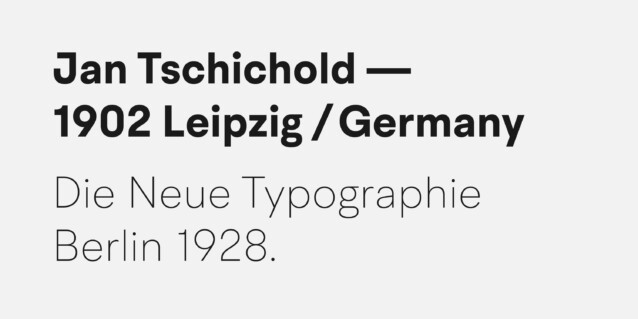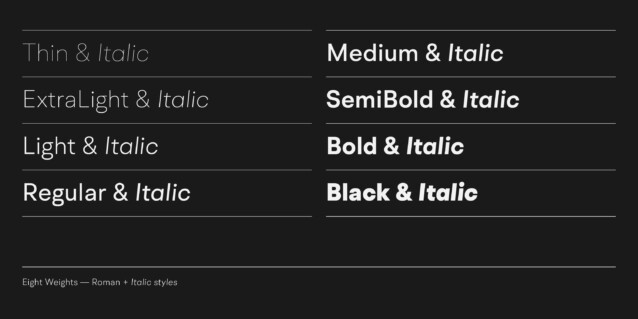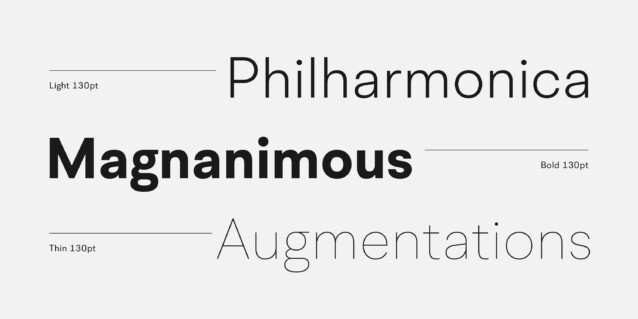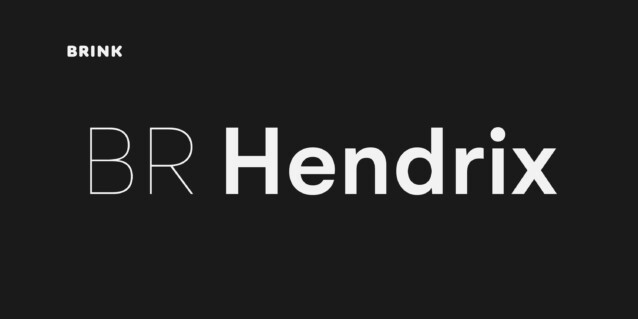
BR Hendrix Font Family
BR Hendrix Font is a neo-grotrsque font family in 8 weights, support most European Languages and features. Precisely drawn with a modern aesthetic in mind, Hendrix has familiar qualities associated with the classic grotesques, but combines them with a stronger geometric flavour.
BR Hendrix provides advanced typographic support with features such as case sensitive forms, fractions, slashed zeros and multiple figure sets.